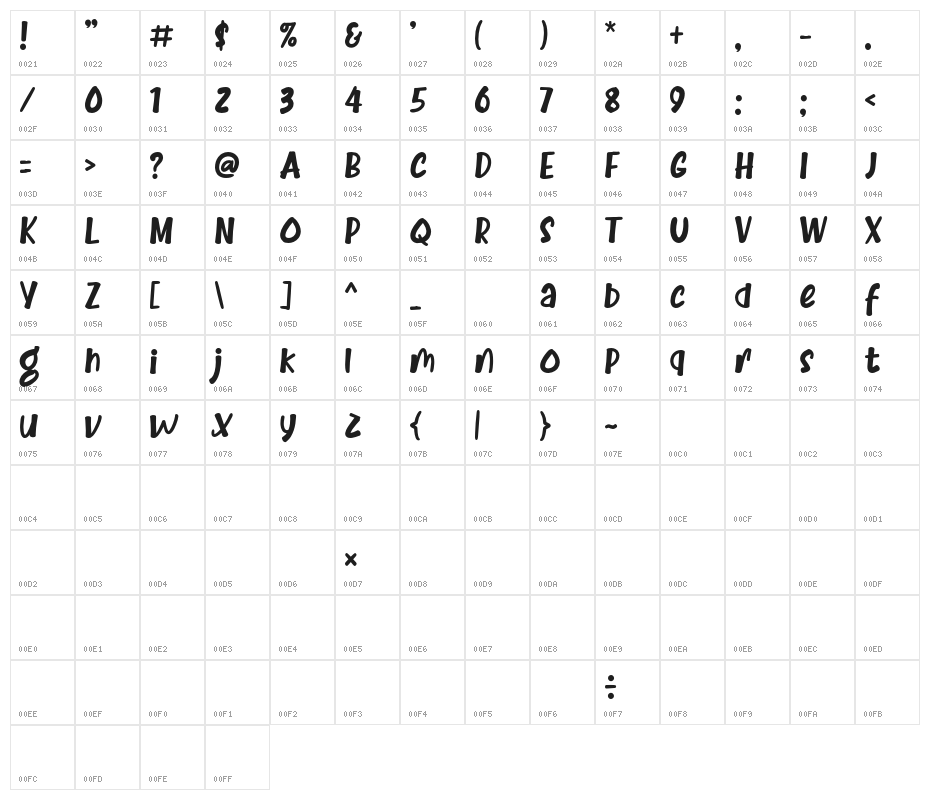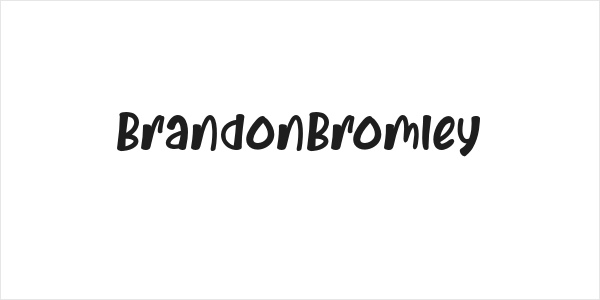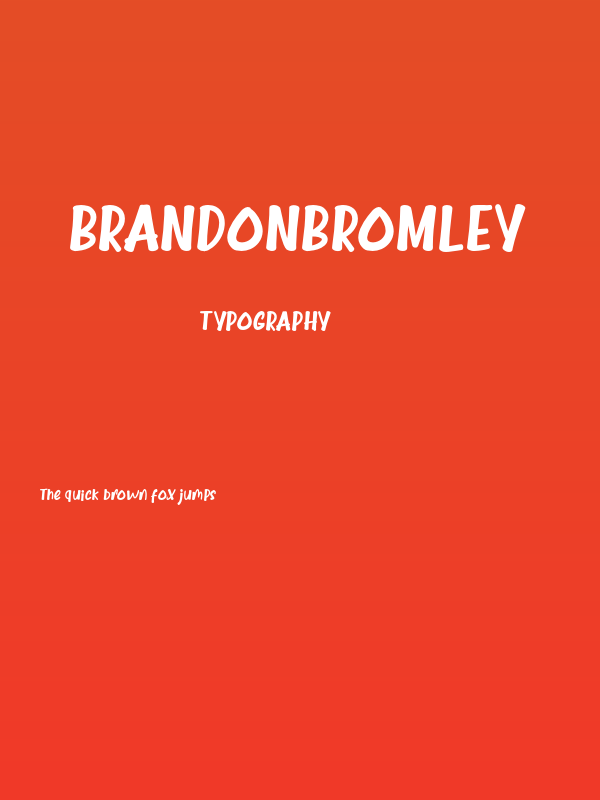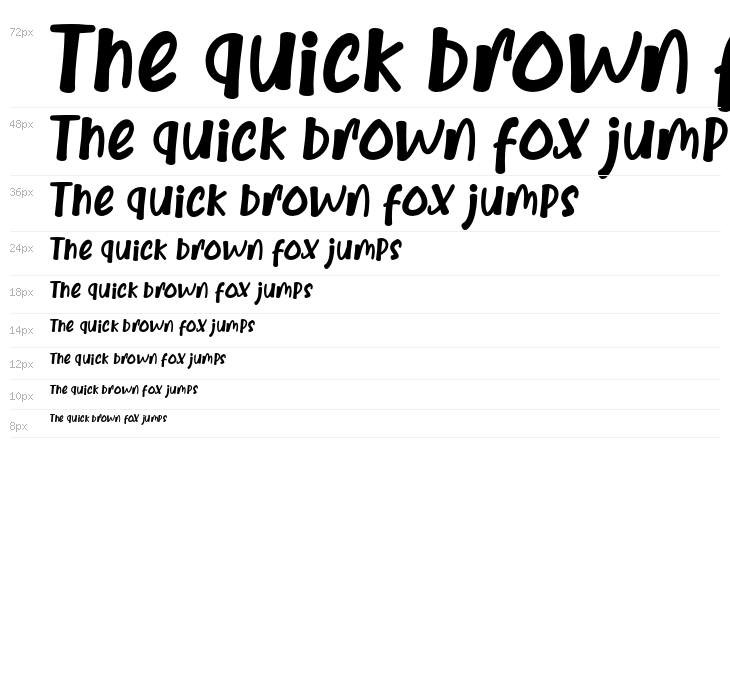
BrandonBromley Font
BrandonBromley Description
This font features a bold and playful style with a handwritten appearance. The characters are rounded and slightly irregular, giving it a casual and friendly feel. The uppercase and lowercase letters maintain a consistent flow, while the numerals and special characters complement the overall design. The strokes are thick, providing a strong presence that stands out in any context. This font is ideal for projects that require a personal touch or a lively, informal vibe.
| Proposed Projects | Ideal for greeting cards, children's books, playful branding, and social media graphics. |